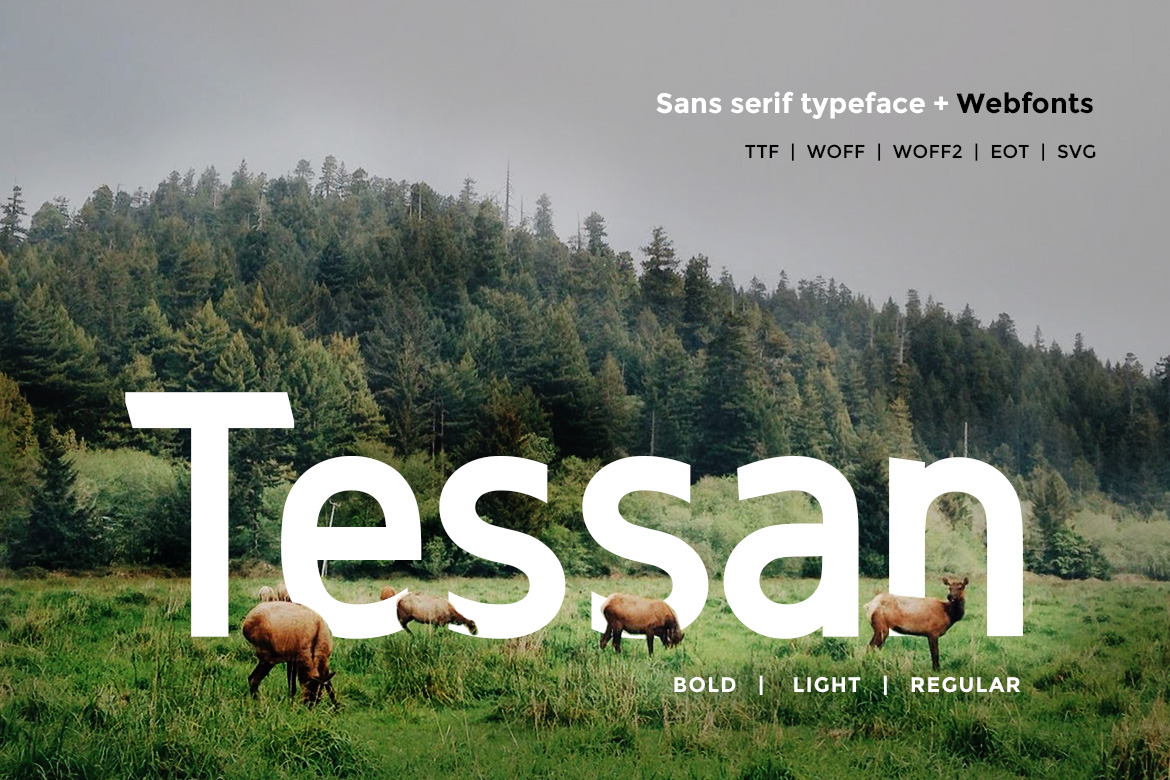
Tessan Sans
Tessan Sans is a modern Sans Serif classic headline typeface inspired by some classic geometric typefaces that keep the minimalism at its level best. The concept of Tessan Sans is based on Classic minimal typeface which was released in the 20th Century, but we have added Modern Styles and concentration to the details. Tessan will be best suited for creating perfect looking headlines that you can always find in fashion web stores and minimal portfolio websites.